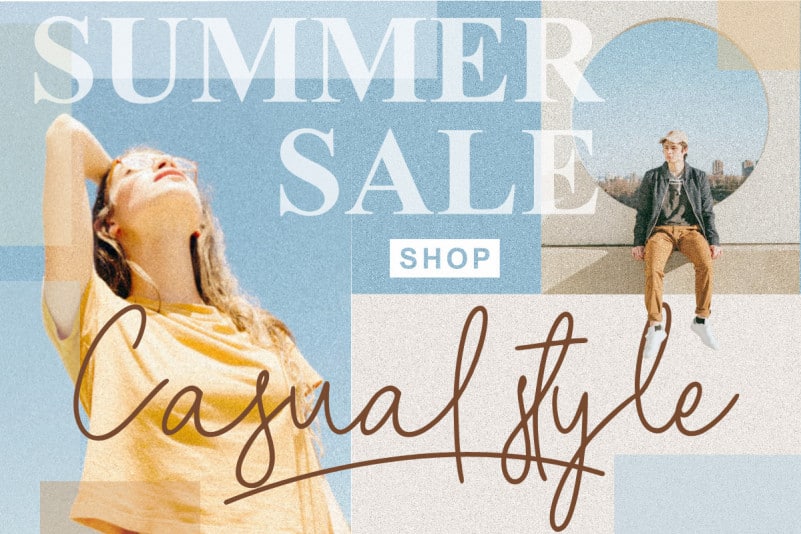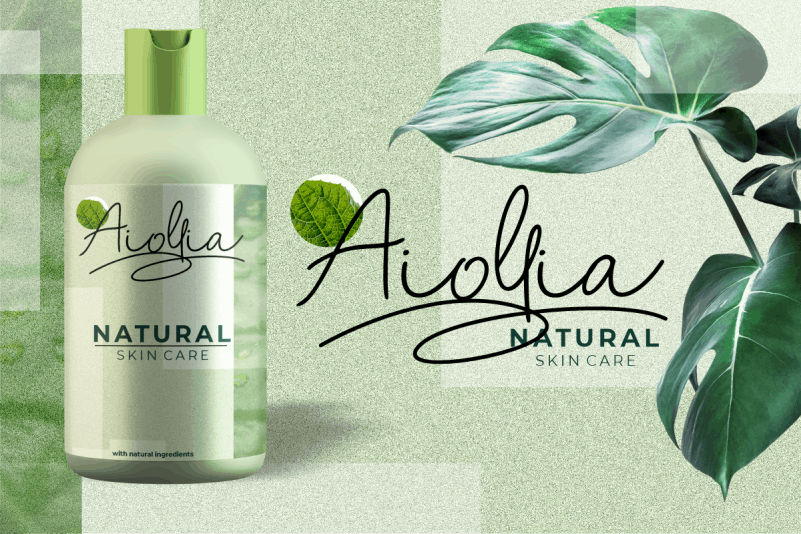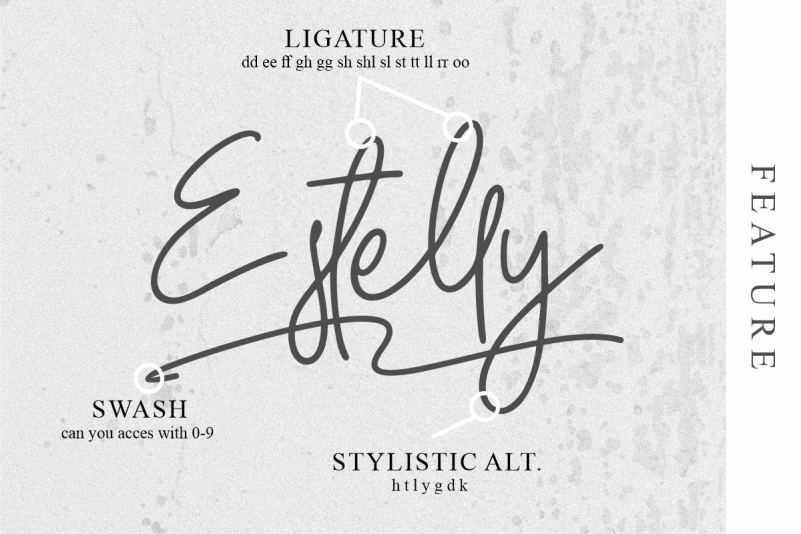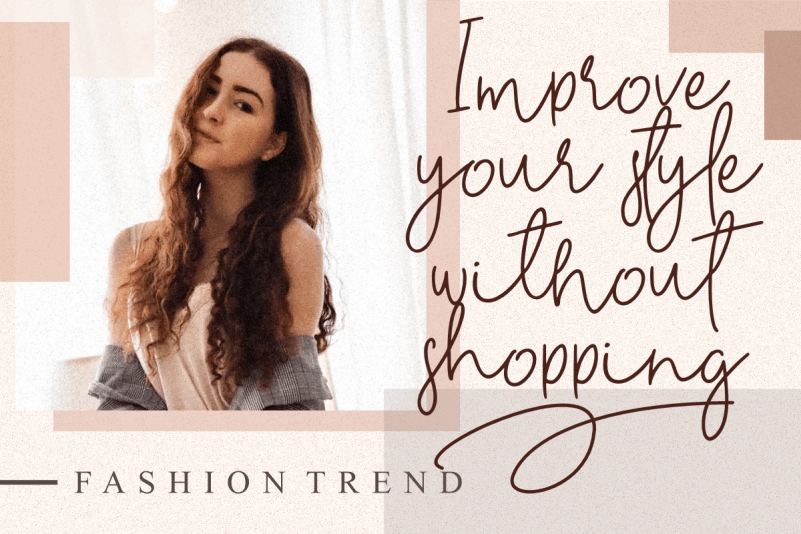
Wishloved Handwritten Font
Wishloved Handwritten Font is a casual stylish handwritten font, a beautiful writing font with natural line movements that make it pretty and elegant. This signature font is perfect for covers, watermarks, branding, names, business cards, products, logos, etc